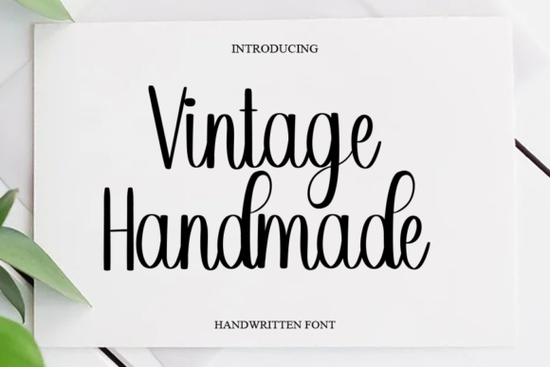
Finding a handwritten font that feels warm, personal, and clean enough to read at a glance isn’t always easy. Many scripts either lean too formal or get too messy for logos and product mockups. Vintage Handmade Font hits that sweet spot it’s a lovely, timeless handwritten typeface where every single letter has a unique, human touch without ever feeling cluttered.
What makes a handwritten script like Vintage Handmade so popular with designers and crafters?
The appeal comes down to warmth and versatility. A well-drawn handwritten font can make a logo feel personal, turn a simple quote into a piece of wall art, or give product packaging a handmade, boutique feel. The Vintage Handmade Font leans into that handmade character with subtle irregularities slightly uneven baselines, organic letter connections, and soft strokes that mimic real pen or brush writing. It’s designed to catch the eye while still being easy to read, which is exactly what you want for branding assets, social media graphics, and print-on-demand designs.
What types of projects work best with the Vintage Handmade Font?
Because this font carries a relaxed, vintage personality, it thrives in designs that need a friendly and approachable voice. Here are a few ways our community of crafters, small business owners, and POD sellers put it to work:
- Logo design & branding: Perfect for coffee shops, bakeries, handmade boutiques, and lifestyle blogs that want a signature look without hiring a calligrapher.
- Quote art & social media posts: The flowing letters turn short inspirational quotes or product announcements into scroll-stopping visuals.
- Merch & print-on-demand: T-shirts, tote bags, mugs, and phone cases the font stays legible at product sizes and adds that “hand-lettered” touch buyers love.
- Crafting & DIY: Cricut and Silhouette users can cut the font for vinyl decals, greeting cards, scrapbooking titles, and custom gifts.
Is the Vintage Handmade Font right for my logo and branding kit?
If your brand personality is friendly, organic, or nostalgic, this font can become a strong visual anchor. Its letters have character but remain clean enough to pair with a simple sans-serif or a clean serif for supporting text. For example, you might use the script for your main business name and keep taglines in a light, modern typeface. The handwritten texture also helps your brand feel more human and less corporate something customers often connect with on a deeper level.
How does this timeless script compare to other fonts in the same family?
What should you look for when picking a handwritten font for commercial use?
Always check the license. Most fonts from Creative Fabrica come with a commercial use license included, meaning you can safely use them on products you sell, in client work, and for print-on-demand items without extra fees. The Vintage Handmade Font follows that model, which makes it a low-risk choice for small shops and freelance designers. You also want to ensure the font has enough character variety, so repetitive letters in a single word still look natural and this one does a great job keeping things organic.
Quick checklist before you start your next design
- Decide the main vibe: soft vintage? relaxed casual? that will confirm if this font fits.
- Test the font at actual project size to appreciate the unique letter shapes and uneven baseline.
- Pair it with a clean sans-serif (like a thin open sans or montserrat) for contrast on multi-line layouts.
- Use it for short, impactful phrases logo names, one‑line quotes, or product callouts rather than long paragraphs.
Whether you’re polishing a brand identity or creating a new batch of merchandise, a reliable handwritten script can save hours of lettering work while keeping the personal touch firmly in place.